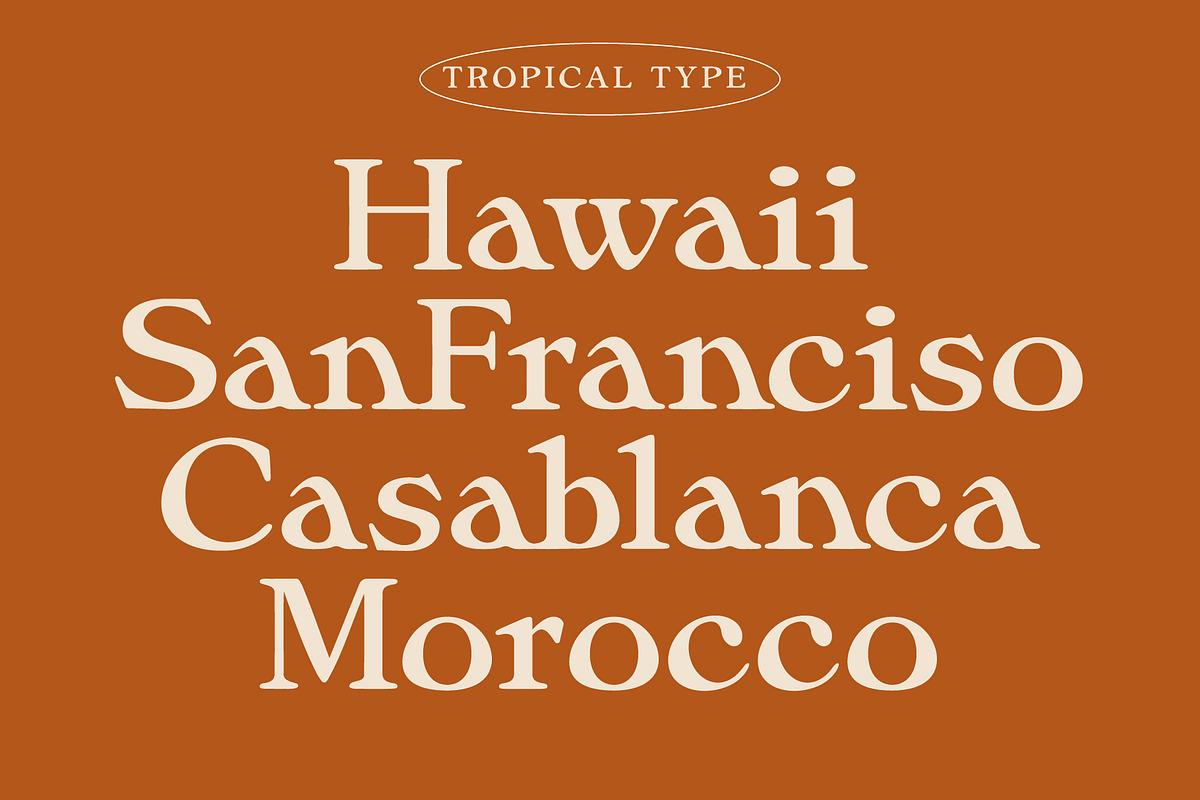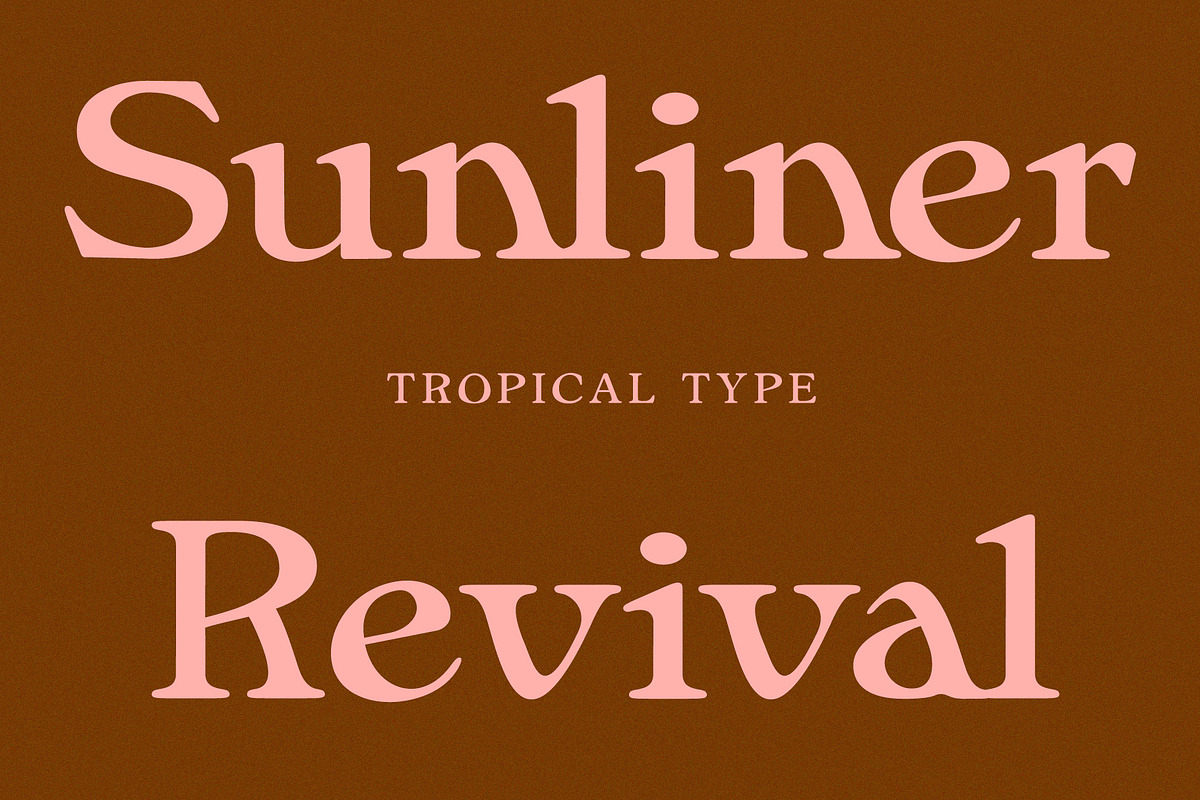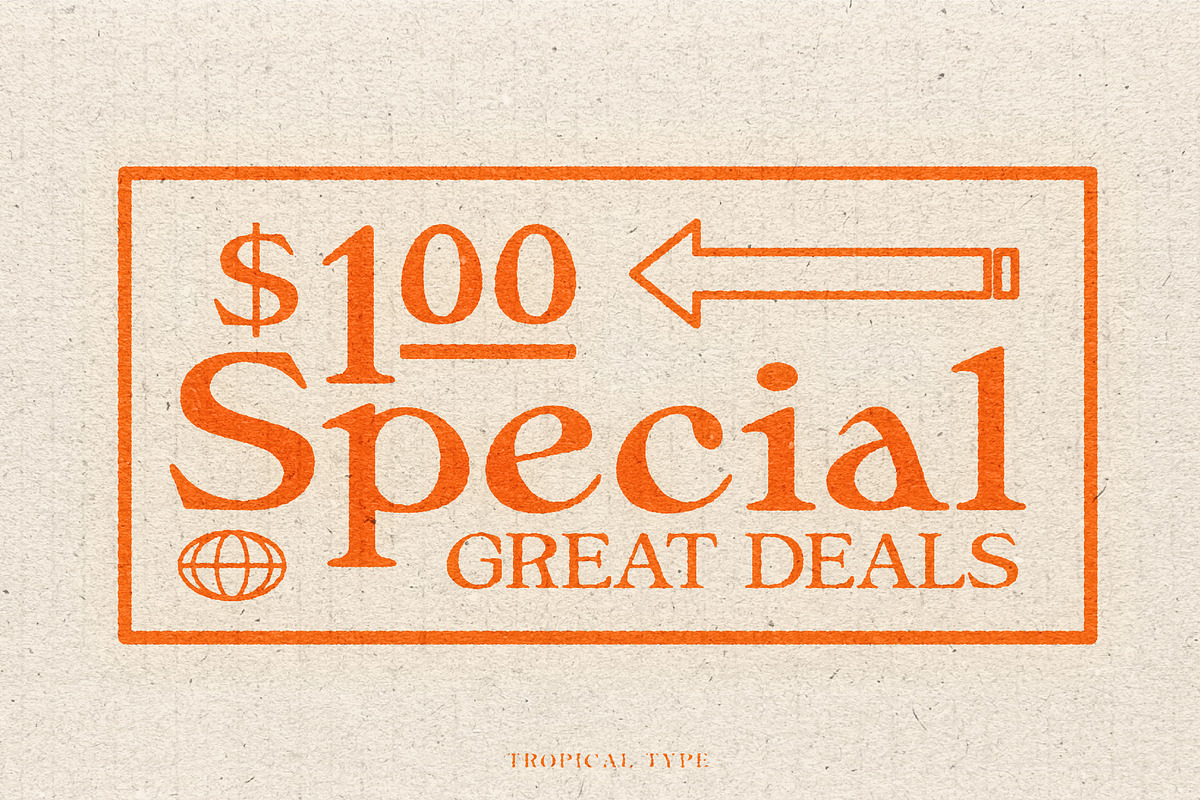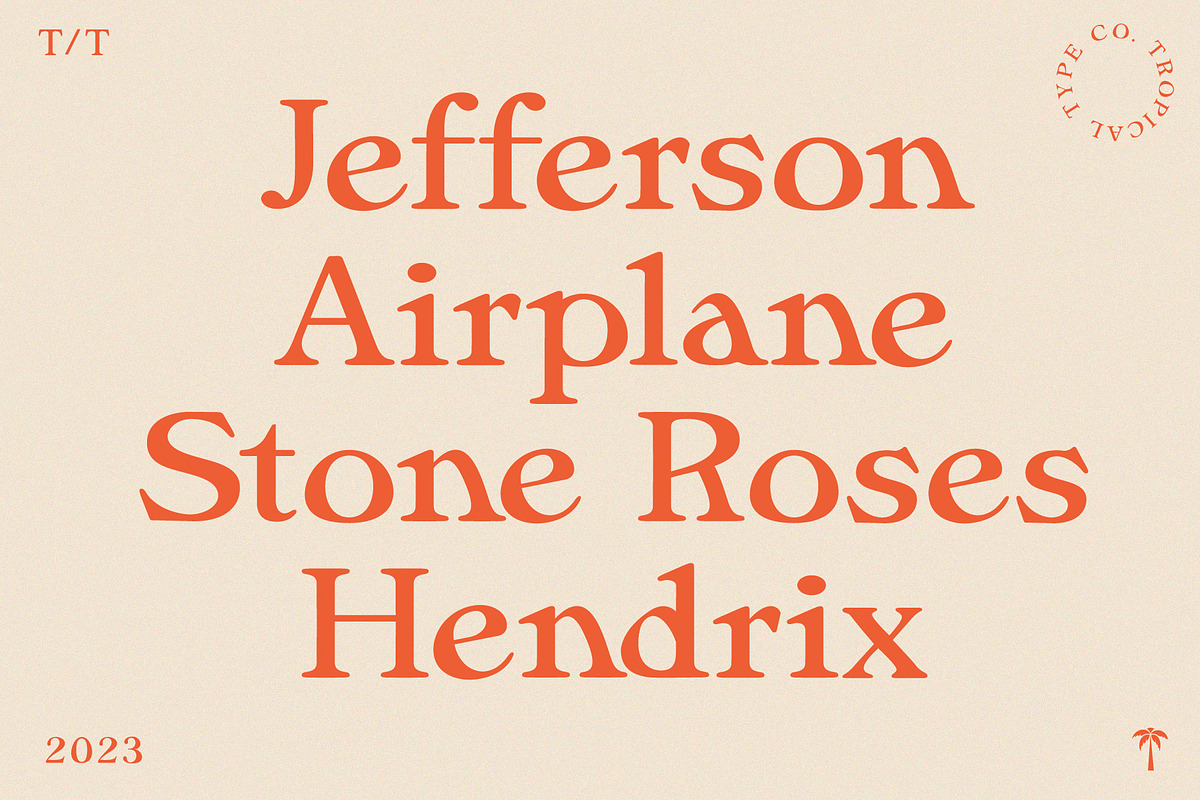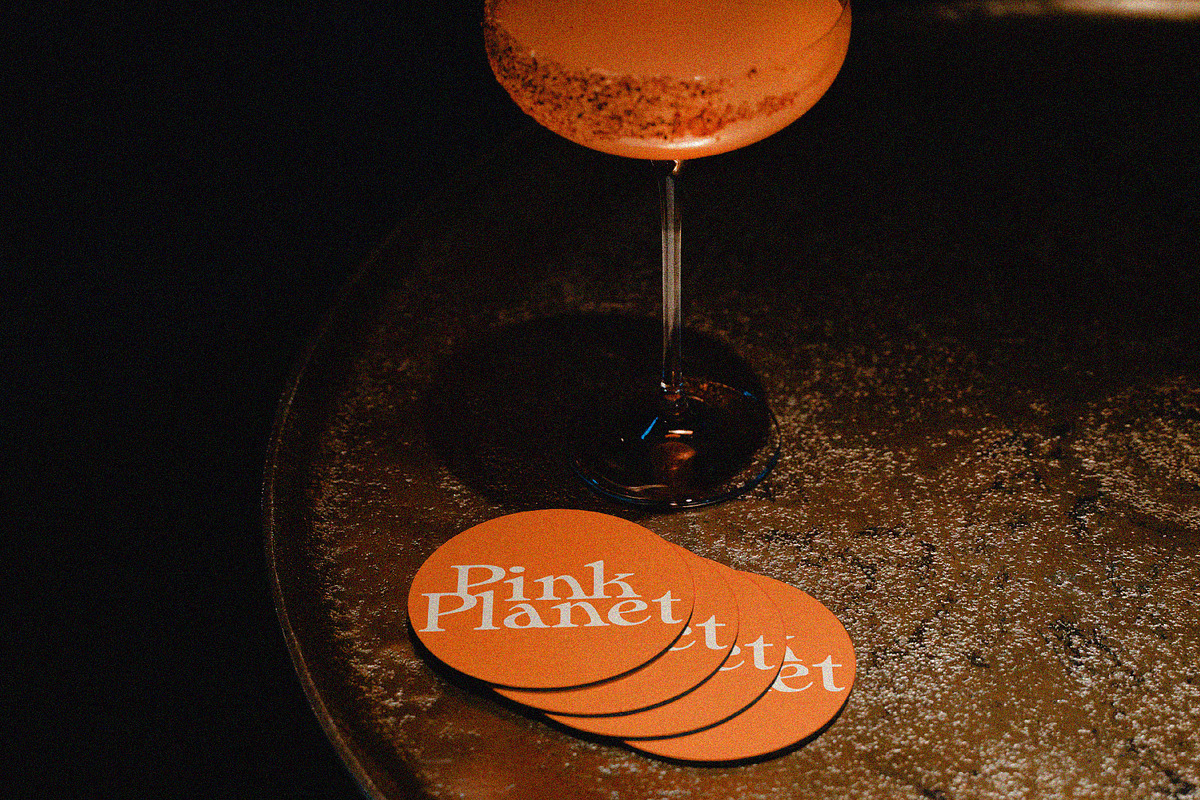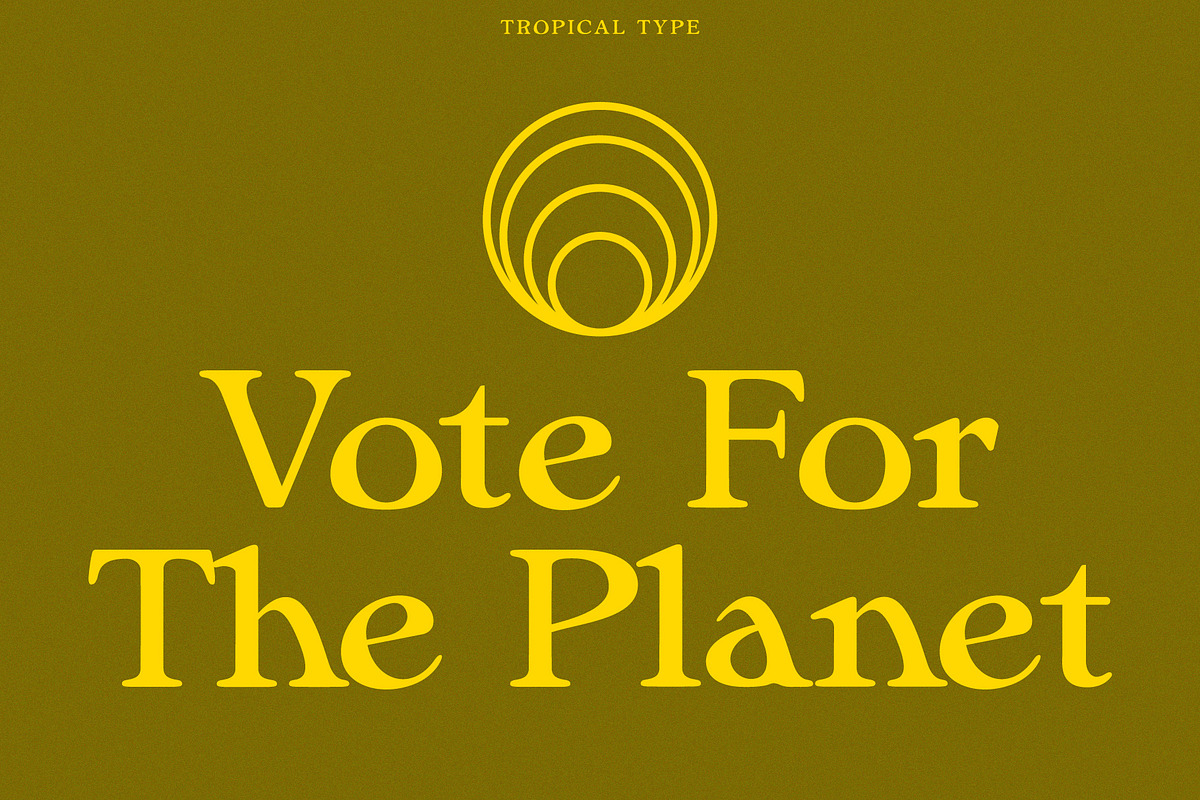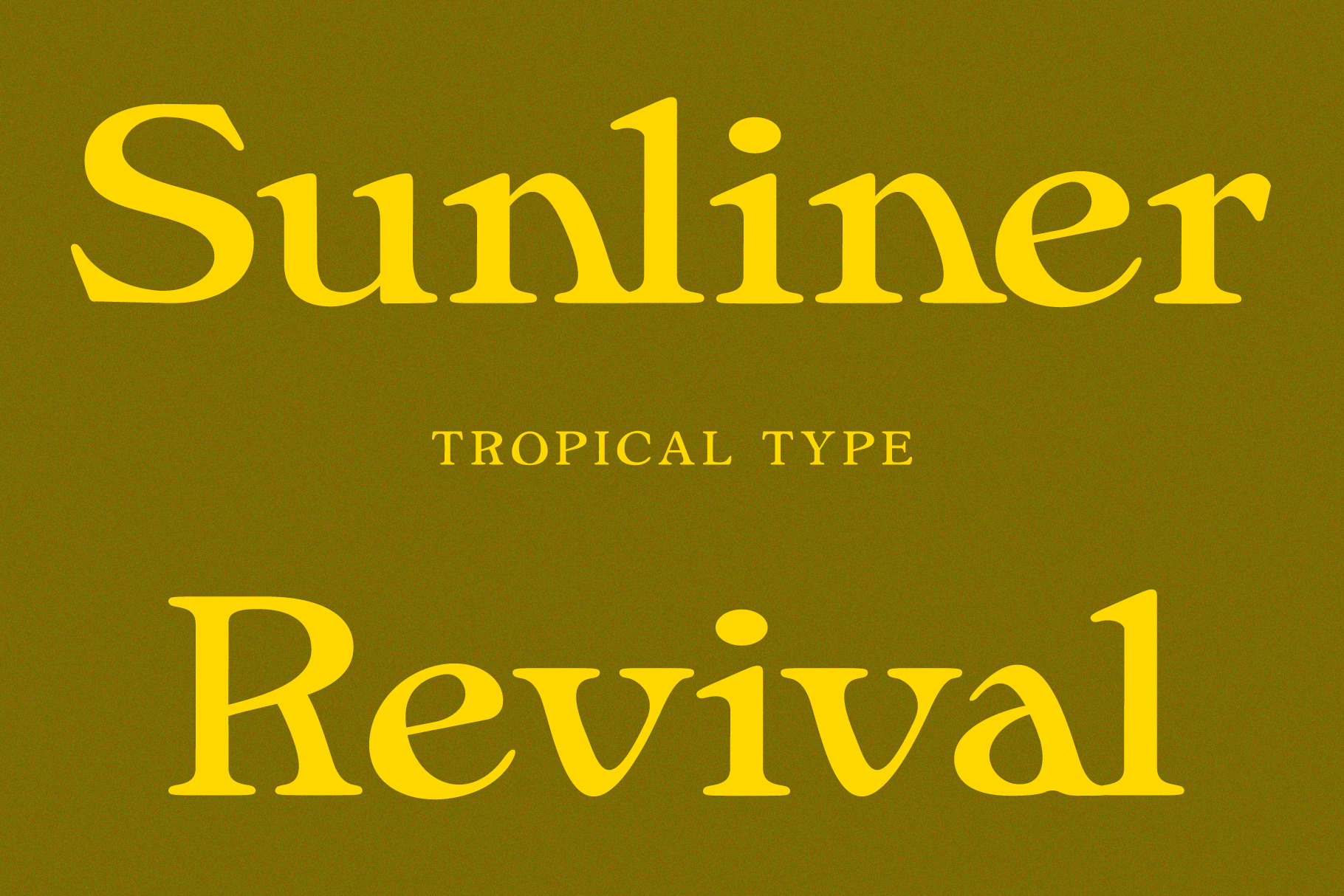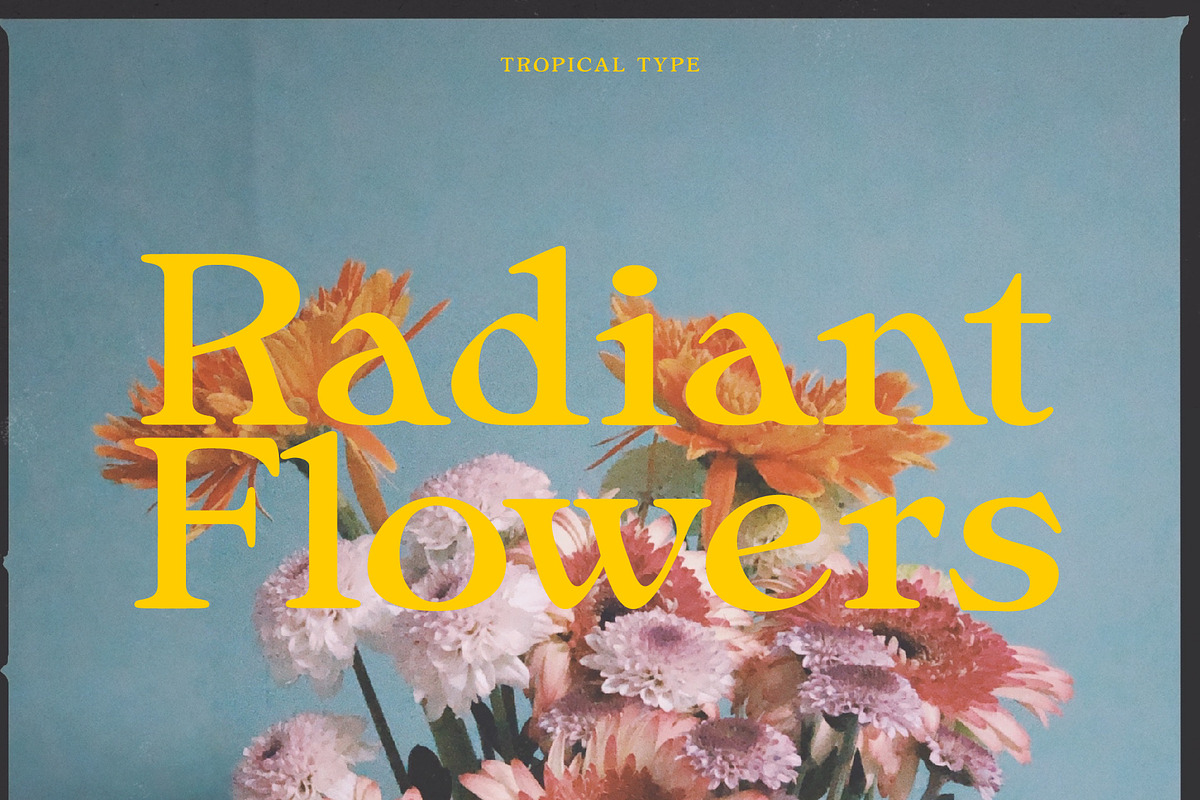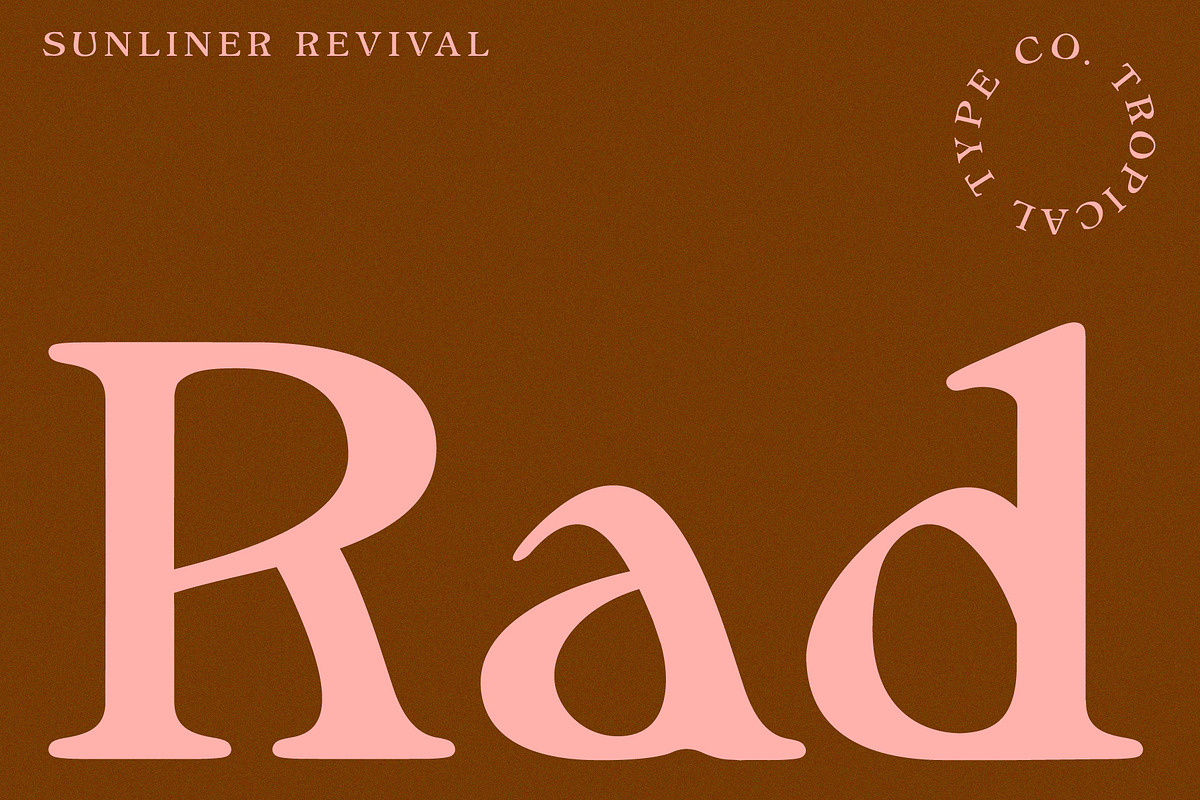
Sunliner Revival Retro Font
Sunliner is influenced by popular fonts of yesteryear such as Cooper Black, Souvenir and Windsor. The increased contrast adds a subtle modern touch but this font is all about nostalgia. The warm fuzz of a record, the touch of a velvet couch. Coco butter mixed with cigar smoke, you get the idea.
Non English glyphs included: ą á â à ä å ã æ ć ç ę é ê è ë í î ì ï ı ł ñ ń ó ô ò ö õ ø œ ś š ß ú û ù ü ý ÿ ž ź ż.Ą Á  À Ä Å Ã Æ Ć Ç Ę É Ê È Ë Í Î Ì Ï Ł Ń Ñ Ó Ô Ò Ö Õ Ø Œ Ś Š Ú Û Ù Ü Ý Ÿ Ź Ż
Agree that the difference between regular, bold and light is not enough - also the font family has no apostrophe’s. Aside from that it’s a great looking font for large text! Edit: Sorry, found the apostrophes! Thanks!
- The letter z is out of the rest of the typography in terms of weight. - The contrast between the regular and bold version is not enough - The separation between words is very wide and has to be adjusted manually